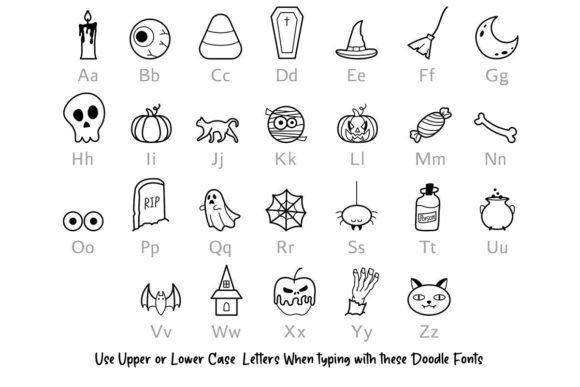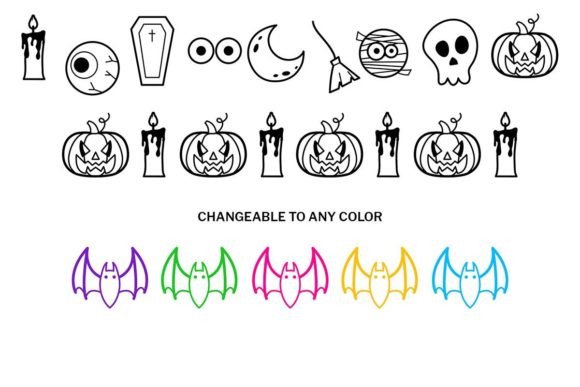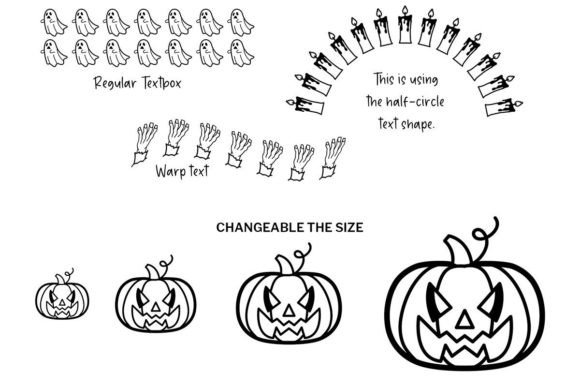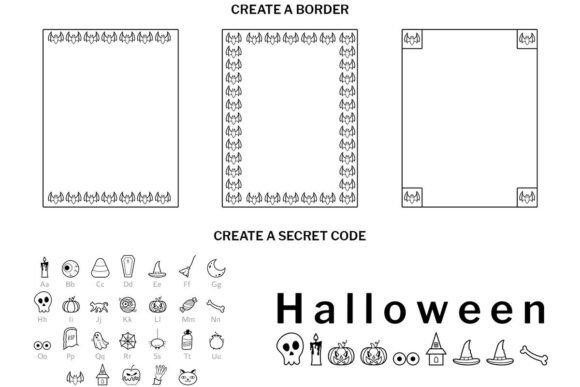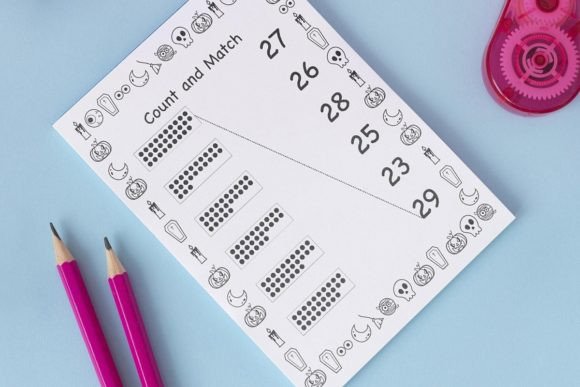
Halloween Doodle Font: Add a Spooky Touch to Your Designs
Are you looking for a fun and spooky font to add a touch of Halloween magic to your designs? Look no further than the Halloween Doodle Font! This dingbat font is perfect for designers, crafters, and anyone looking to create spooky and festive projects for the Halloween season.
What is Halloween Doodle Font?
Halloween Doodle Font is a unique and creative font that features a range of Halloween-themed characters, including ghosts, pumpkins, cats, cauldrons, and spider webs. This font is designed to add a playful and spooky touch to your designs, making it perfect for Halloween-themed projects such as invitations, party decorations, and social media graphics.
Key Features of Halloween Doodle Font
- Fun and Spooky Characters: The Halloween Doodle Font features a range of fun and spooky characters, including ghosts, pumpkins, cats, cauldrons, and spider webs.
- Dingbat Font: This font is a dingbat font, which means that each character is a unique graphic element, rather than a traditional letter or number.
- Perfect for Halloween Projects: This font is perfect for Halloween-themed projects, including invitations, party decorations, and social media graphics.
Uses for Halloween Doodle Font
The Halloween Doodle Font is a versatile font that can be used for a range of projects, including:
- Halloween Invitations: Create spooky and festive invitations for Halloween parties and events.
- Party Decorations: Use the Halloween Doodle Font to create party decorations, such as banners, garlands, and signs.
- Social Media Graphics: Add a touch of Halloween magic to your social media graphics, including Facebook posts, Twitter headers, and Instagram stories.
- Crafting Projects: Use the Halloween Doodle Font to create spooky and festive crafting projects, such as Halloween cards, gift tags, and scrapbook pages.
Tips for Using Halloween Doodle Font
Here are some tips for using the Halloween Doodle Font:
- Experiment with Different Sizes and Colors: Experiment with different sizes and colors to add depth and interest to your designs.
- Combine with Other Fonts: Combine the Halloween Doodle Font with other fonts to create a unique and eye-catching design.
- Use for Headlines and Titles: Use the Halloween Doodle Font for headlines and titles to add a touch of Halloween magic to your designs.
| Font Name | Halloween Doodle Font |
| Author | digitalplannerland |
The Halloween Doodle Font is a fun and spooky dingbat font that is perfect for adding a touch of Halloween magic to your designs. With its range of fun and spooky characters, ease of use, and versatility, this font is a must-have for designers, crafters, and anyone looking to create spooky and festive projects for the Halloween season.